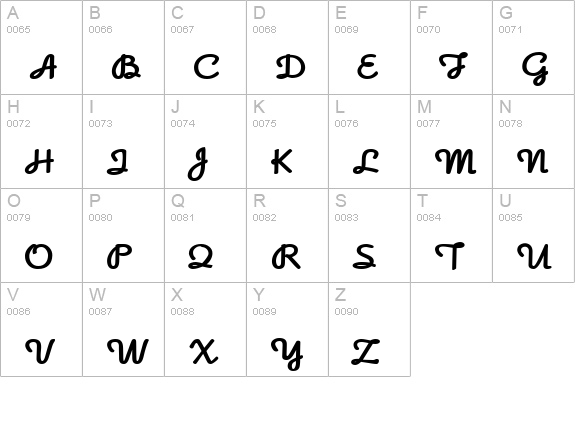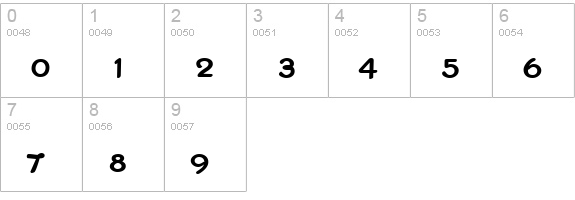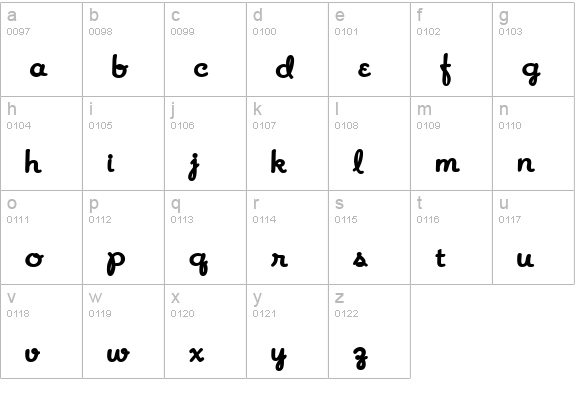
ShutUp Font Details
Introducing ShutUp font, a stunningly bold and expressive typeface that effortlessly commands attention. With its sleek lines and dynamic shapes, this font exudes confidence and power, making it perfect for creating eye-catching headlines, striking logos, or impactful designs. But what truly sets ShutUp font apart is its accessibility. We believe that great design should be available to everyone, and that's why we are proud to offer ShutUp font completely free. That's right, you can freely download this exceptional font at FontsMarket.com, without any restrictions or limitations. ShutUp font is not just visually captivating; it also boasts a versatile range of characters and glyphs, ensuring seamless integration into any project. Whether you're designing a poster, website, or branding materials, this font will enhance your creative vision and elevate your message. Designed with meticulous attention to detail, ShutUp font offers exceptional legibility and readability, even at smaller sizes. Its clean and modern aesthetic will make your text effortlessly stand out, whether on printed materials or digital platforms. So what are you waiting for? Experience the power of ShutUp font and unleash your creativity. Download it for free today at FontsMarket.com, and let your designs speak volumes without saying a word.